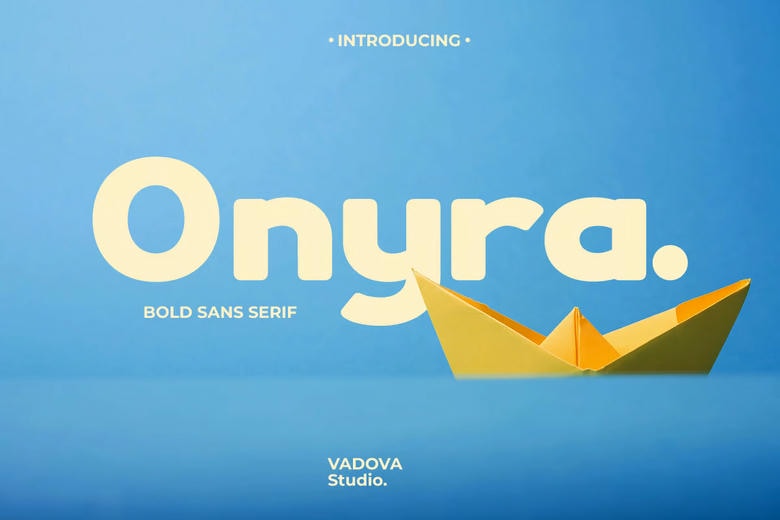
Onyra Font
Onyra is a typeface with a taste of the bold sans serif typeface which gives your project a fresh distinct look and feel. For any quote, for logos, for the heading of a magazine or for something more complex, this font guarantees that text, when applied, looks amazing.
Onyra Sans Serif Font